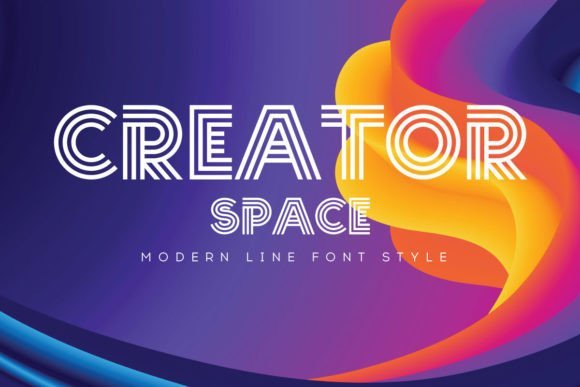
The Moment of Inspiration
Have you ever stared at a blank canvas, eager to bring your creative vision to life? The possibilities are endless, but the right tools can make all the difference. For designers, the perfect font can be the spark that sets their imagination ablaze.
Enter Creator Space Font, a sleek and modern line display font that exudes sophistication and minimalism. With clean, sharp lines and contemporary styling, this font is the perfect companion for designers looking to add a touch of elegance to their work. Whether you’re crafting a logo, creating a brochure, or designing a website, Creator Space Font is the perfect tool to let your creativity shine.
By incorporating Creator Space Font into your design arsenal, you’ll be able to create designs that are truly cutting-edge and reflect your unique style. Its versatility and sophistication make it an invaluable asset for any designer looking to elevate their work and stand out from the crowd.
Key Features of Creator Space Font
- Unique Characteristics: Creator Space Font features a unique blend of modern and futuristic elements, with intricate details and subtle nuances that set it apart from other sans-serif fonts.
Designer Review: Creator Space Font
Overall, I think Creator Space Font has some great qualities that make it a solid choice for certain projects, but it also has some limitations that prevent it from being a top pick for me. ✨
- The font’s clean and modern aesthetic is perfect for tech-related projects or websites that need a professional look.
- The font is highly legible, even at smaller sizes, making it great for body text or headlines.
- The font family includes a wide range of weights and styles, giving designers a lot of flexibility.
- ⚠️ The font can feel a bit sterile or cold, which may not be suitable for projects that need a more emotional or personal tone.
- ⚠️ The font’s x-height can be a bit too small, which can make it difficult to read for some users, especially at smaller sizes.
- ⚠️ The font family is not as extensive as some other popular fonts, which can limit its versatility.
Overall, I think Creator Space Font is a solid choice for projects that need a clean and modern look, but it may not be the best fit for projects that require a more emotive or playful tone.
For the best results, use Creator Space Font in conjunction with bold or italic text to add emphasis.
Common use cases for Creator Space Font include:
- Infographics and data visualization
- Marketing materials and social media posts
Alternatives to Creator Space Font
Open Sans is a clean and modern sans-serif font designed by Steve Matteson. It is suitable for a wide range of applications, including digital products, magazines, and websites. Open Sans is highly legible and versatile, making it an excellent choice for designers who need a neutral font.
Comparison to Creator Space Font: Open Sans is more neutral and clean, whereas Creator Space Font has a more unique and artistic feel. Open Sans is ideal for projects where a minimalist aesthetic is desired.
Lato is a sans-serif font designed by Łukasz Dziedzic. It is a highly readable font that works well in digital and print applications. Lato is suitable for a wide range of projects, including corporate identities, websites, and magazines.